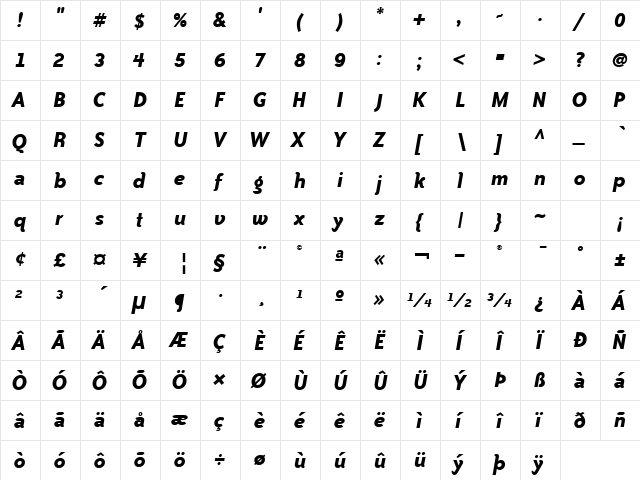
Bailey Sans ITC TT BoldItalic
Design Context for Bailey Sans ITC TT Typeface
Bailey Sans ITC TT is a composed and adaptable typeface that performs quietly and consistently across a wide range of design contexts. Its italic angle brings a sense of urgency and motion to the letterforms. Its bold stroke weight gives it real presence on the page.